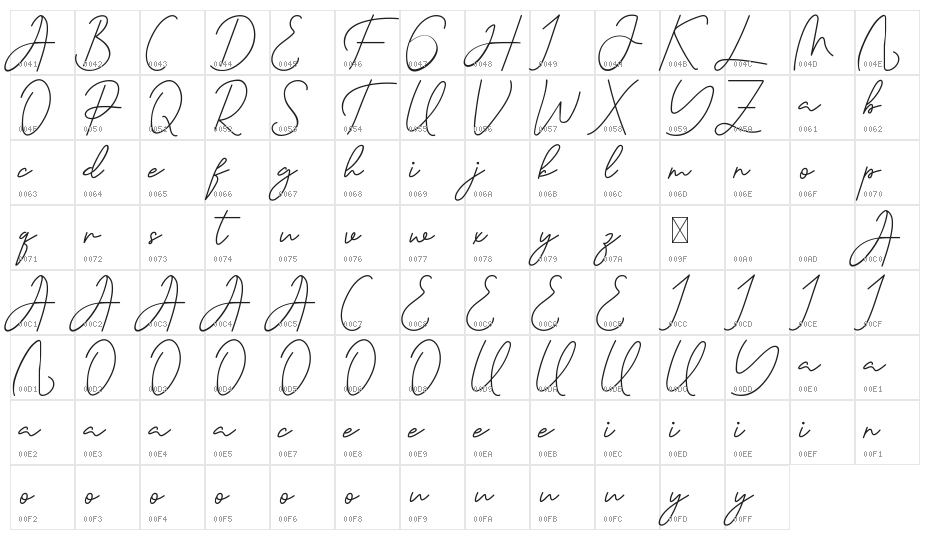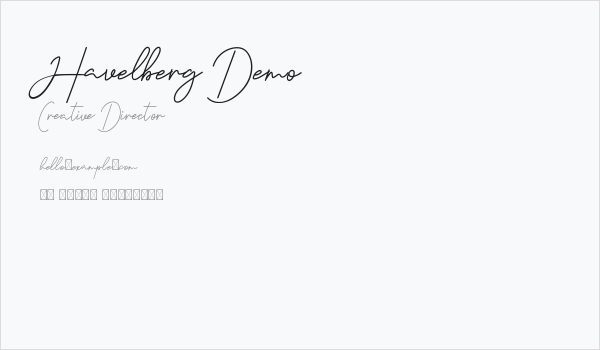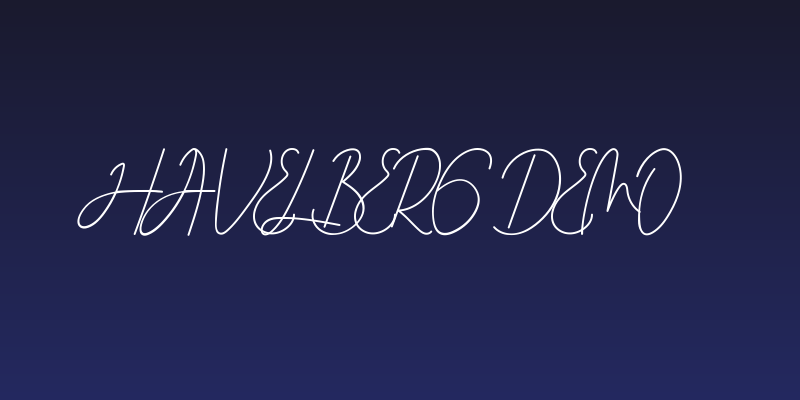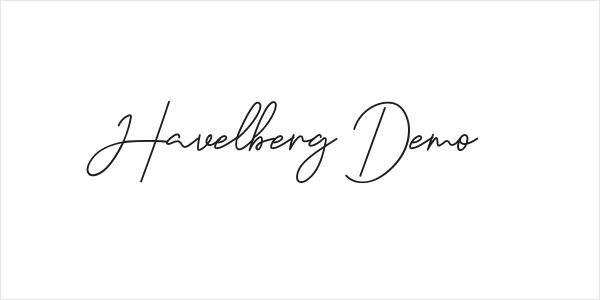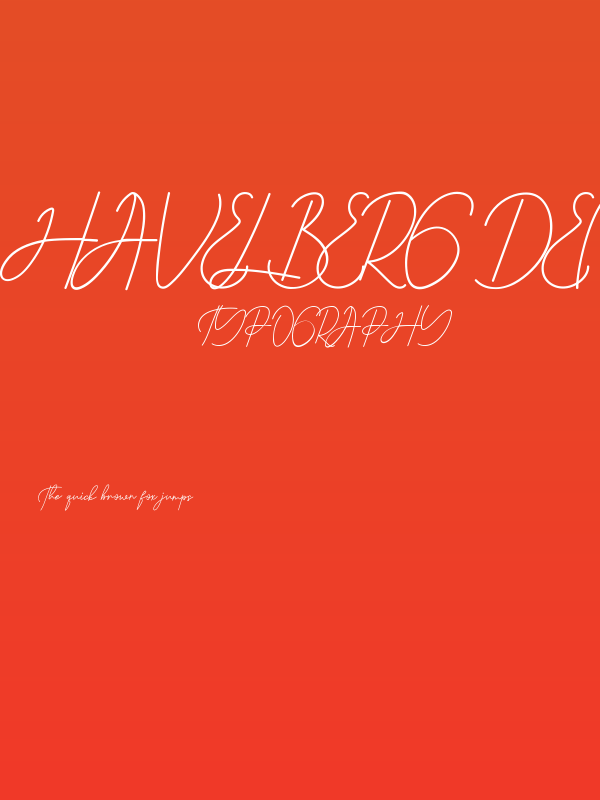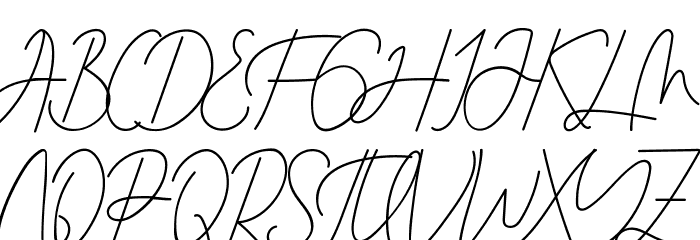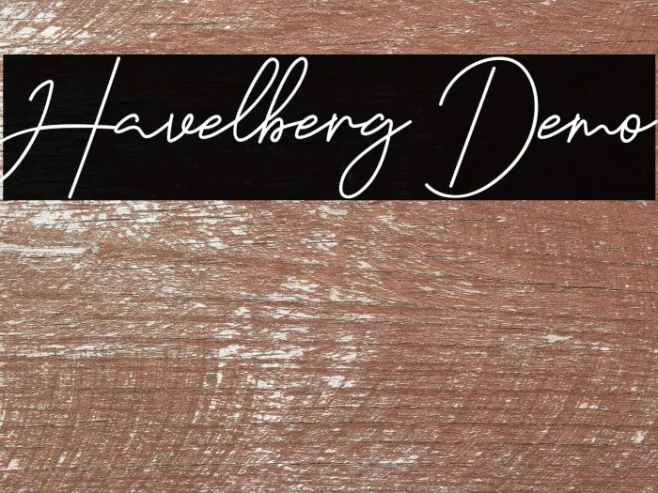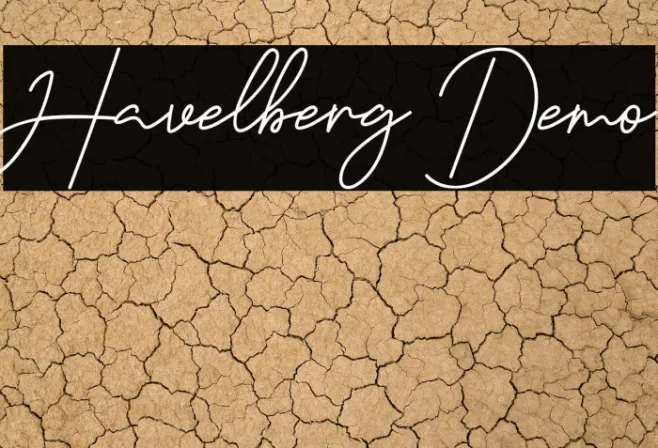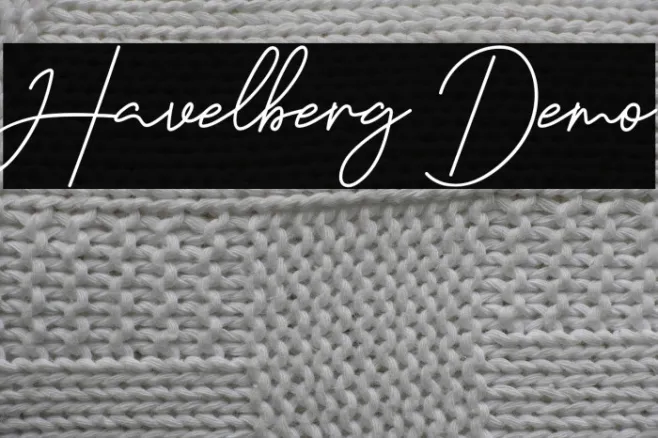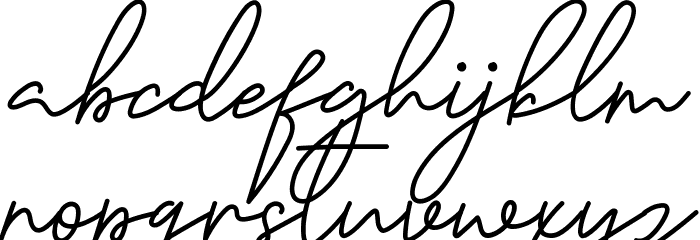
Havelberg Demo Font
Havelberg Demo Description
This font features an elegant, flowing script style with a handwritten appearance. The uppercase letters are tall and slender, with graceful loops and curves that give them a sophisticated look. The lowercase letters are more compact but maintain the same fluidity and elegance. The strokes are consistent in width, providing a harmonious and balanced appearance. The font conveys a sense of elegance and refinement, making it suitable for formal invitations, branding, and other projects that require a touch of class. The overall design is both modern and timeless, with a slight vintage flair.
| Overall Style | Elegant, Modern, Vintage |
| Proposed Projects | Ideal for wedding invitations, elegant branding, personal stationery, and upscale packaging. |